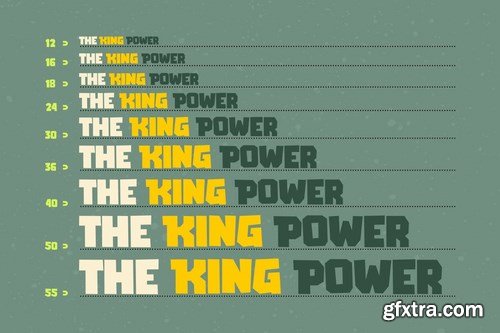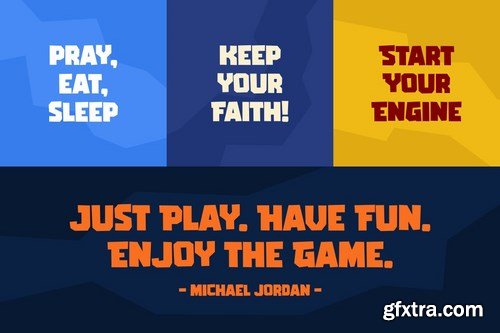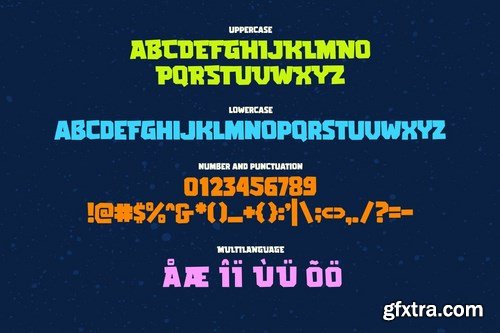
Having a blocky shape with powerful, quirky, and strong sharp corner, will make GAMERIA emphasize on every word you put on the screen. Suit perfectly for Online Games, poster, movie title, fast food menu, magazine, and so on... Happy designing.